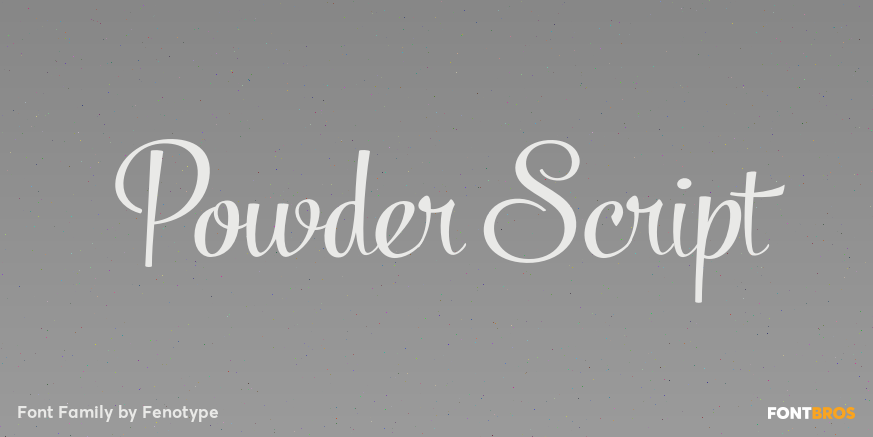
Powder Script
About Powder Script
Powder Script is a showy brush style script family of three weights -regular, bold and black plus matching Ornament and Pattern set. Powder Script is packed with almost 800 glyphs per weight and is full of features. To activate alternate characters click…